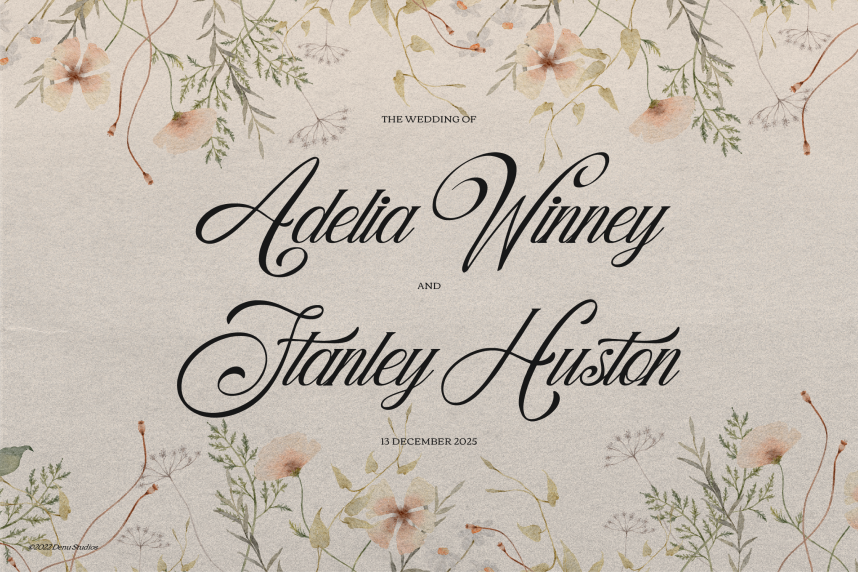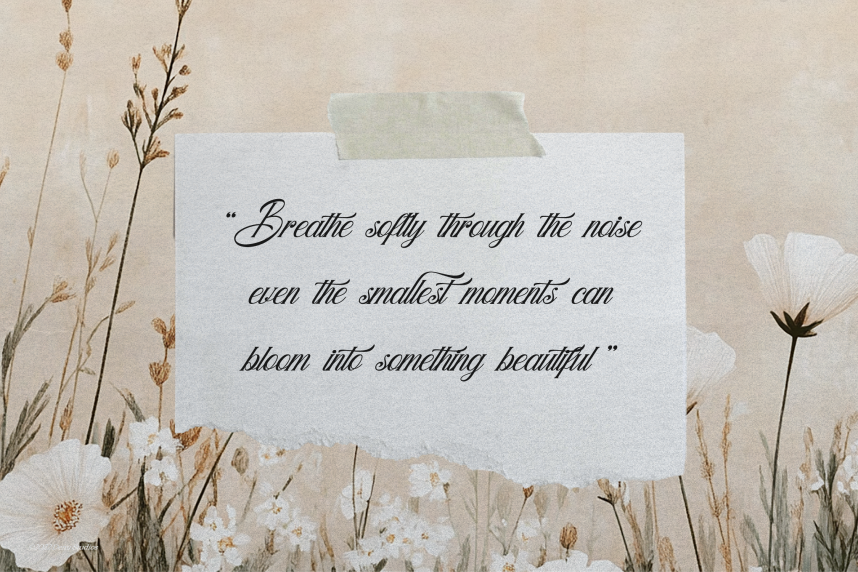
Marelyna Charleya Font captures the beauty of handwritten artistry with grace and warmth. Its flowing letters resemble elegant calligraphy, perfect for designs that need a personal touch.
Each stroke feels natural and expressive, giving your words an authentic human feel. It’s ideal for invitations, logos, or branding that calls for emotion and softness.
This font carries a romantic charm that blends classic handwriting with modern smoothness. The curves are delicate yet confident, making it visually balanced.
Marelyna Charleya adds an emotional tone to your design, especially in projects that value personality. It feels alive and heartfelt, connecting instantly with the reader.
Marelyna Charleya Font Family
Designers use it for wedding cards, feminine brands, lifestyle quotes, and creative packaging. It fits beautifully wherever warmth and authenticity matter.
| Type | Elegant Script |
| Usage | Best for wedding invitations, signature logos, and packaging |
Marelyna Charleya transforms plain text into elegant art. It brings handwriting aesthetics to life with modern readability and timeless character.